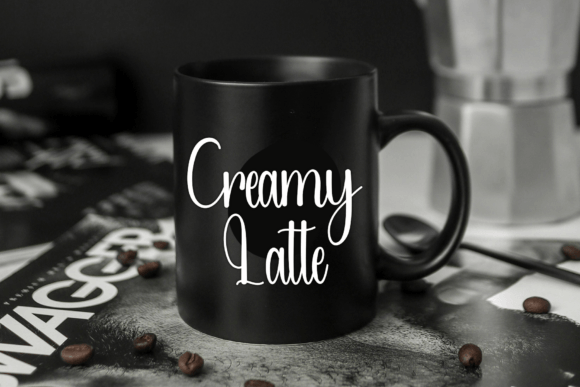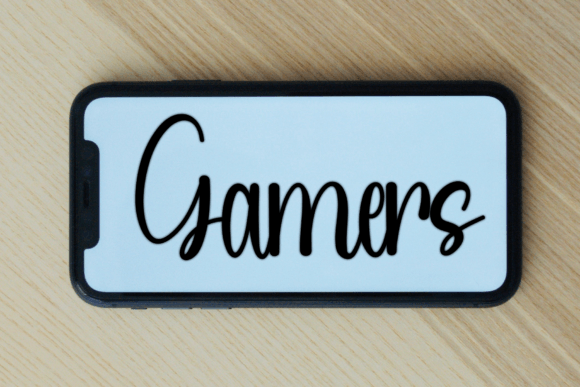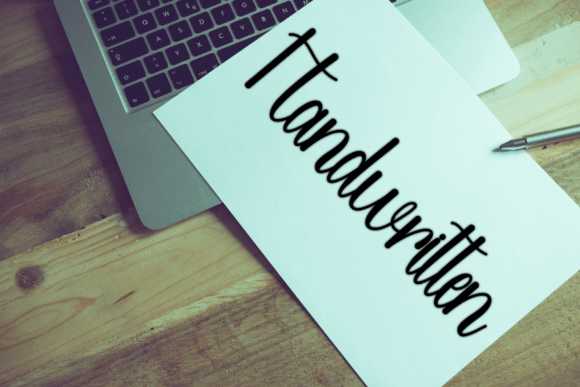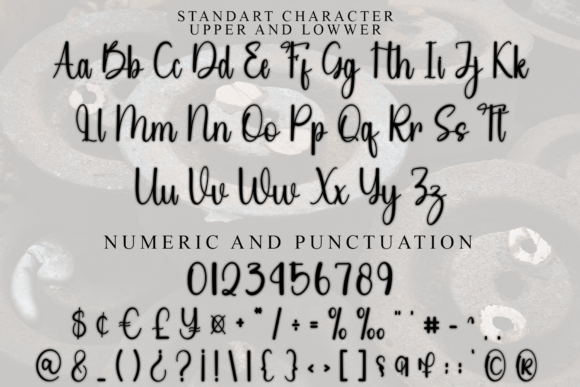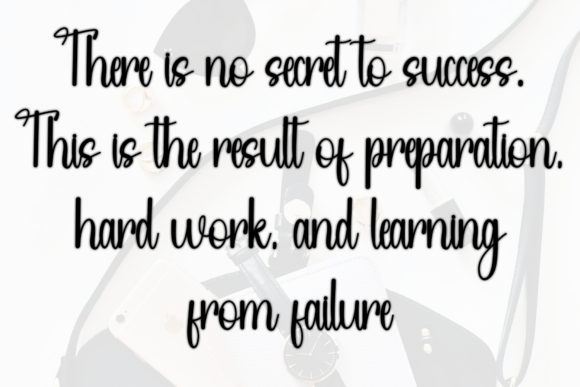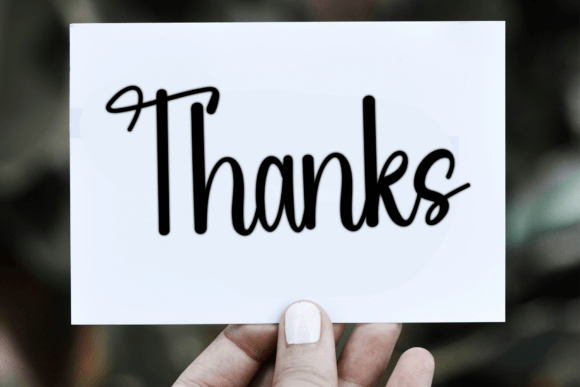
The Elusive Perfect Font: My Encounter with Gather
I still remember the frustration of working on a client’s wedding invitation project, determined to find the perfect font that exuded elegance and charm. The design needed to be sophisticated yet warm, and I was on a mission to find that one magical font. After hours of scouring through font libraries and testing out various options, I stumbled upon Gather – a stylish font that instantly captured my attention. Its fluid strokes and natural flow created a captivating, sophisticated look that perfectly complemented my design. In this article, I’ll share my experience with Gather, its features, and how to make the most of this beautiful font.
An Honest Review of Gather
What I Love About Gather ✨
- ✨ Elegant and charming design that’s perfect for sophisticated projects
- ✅ Fluid strokes and natural flow create a captivating look
- ✅ Perfect for adding a personal touch to invitations, branding, or social media
- ✅ Brings a sense of warmth and creativity to any design
- ⚠️ Limited availability of bold weights, which might not be suitable for designs requiring heavy emphasis
- ⚠️ Some users might find the font a bit too ornate for very minimalist designs
The Story Behind Gather
Gather was designed by a talented typographer who aimed to create a font that exudes warmth and sophistication. Inspired by classic calligraphy and modern script fonts, Gather combines fluid strokes and natural flow to create a captivating, elegant look. The designer’s goal was to craft a font that’s both versatile and beautiful, making it perfect for a wide range of creative projects.
| Font Name | Gather Font |
| What type of projects is Gather best suited for? | Gather is perfect for designs requiring elegance and charm, such as invitations, branding, social media graphics, and more. |
| Is Gather a versatile font? | Yes, Gather is a versatile font that can be used for a wide range of projects, from formal events to creative designs. |
| Does Gather support OpenType features? | Yes, Gather supports OpenType features, such as ligatures, stylistic alternates, and glyphs, which can be used to add a personal touch to your designs. |